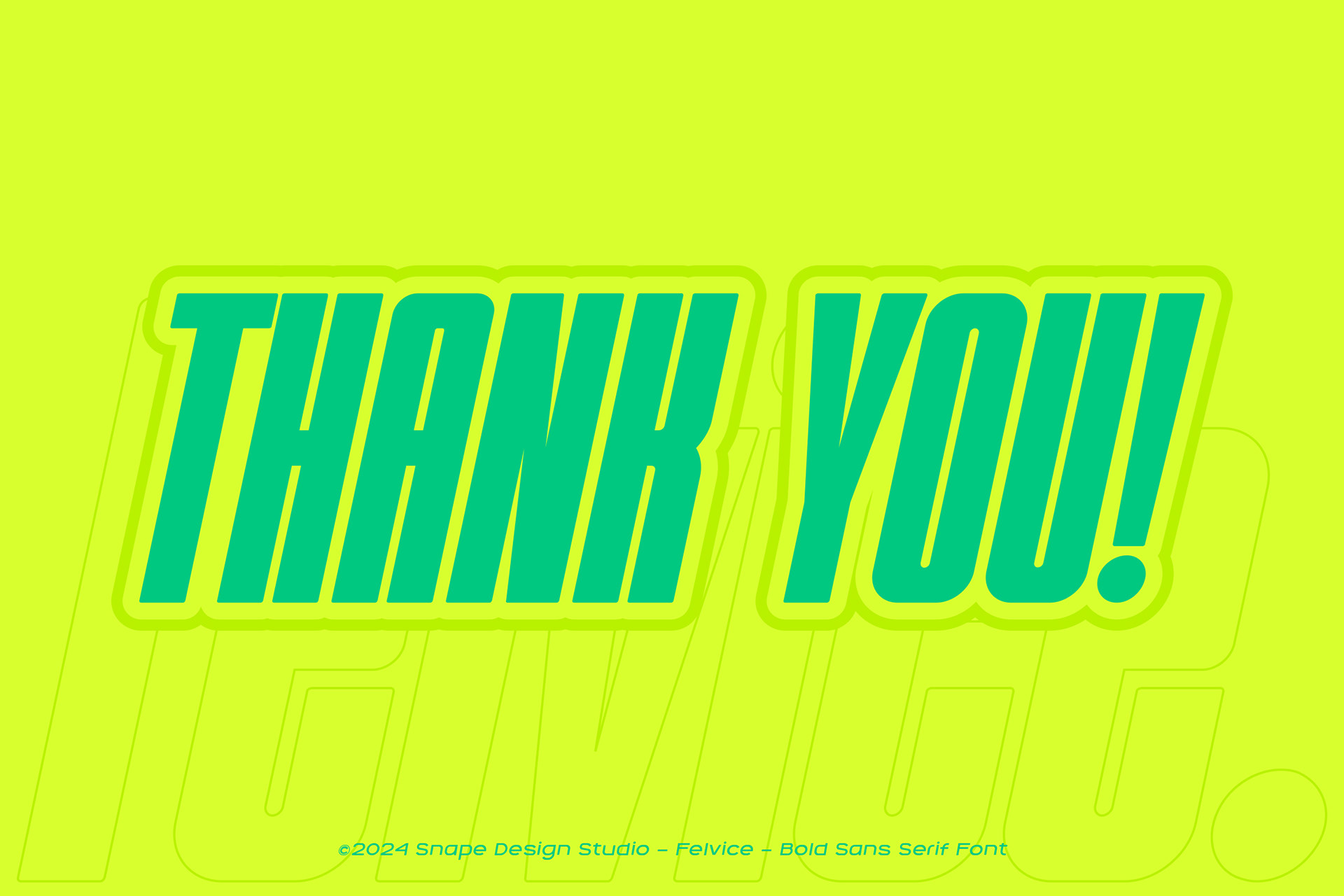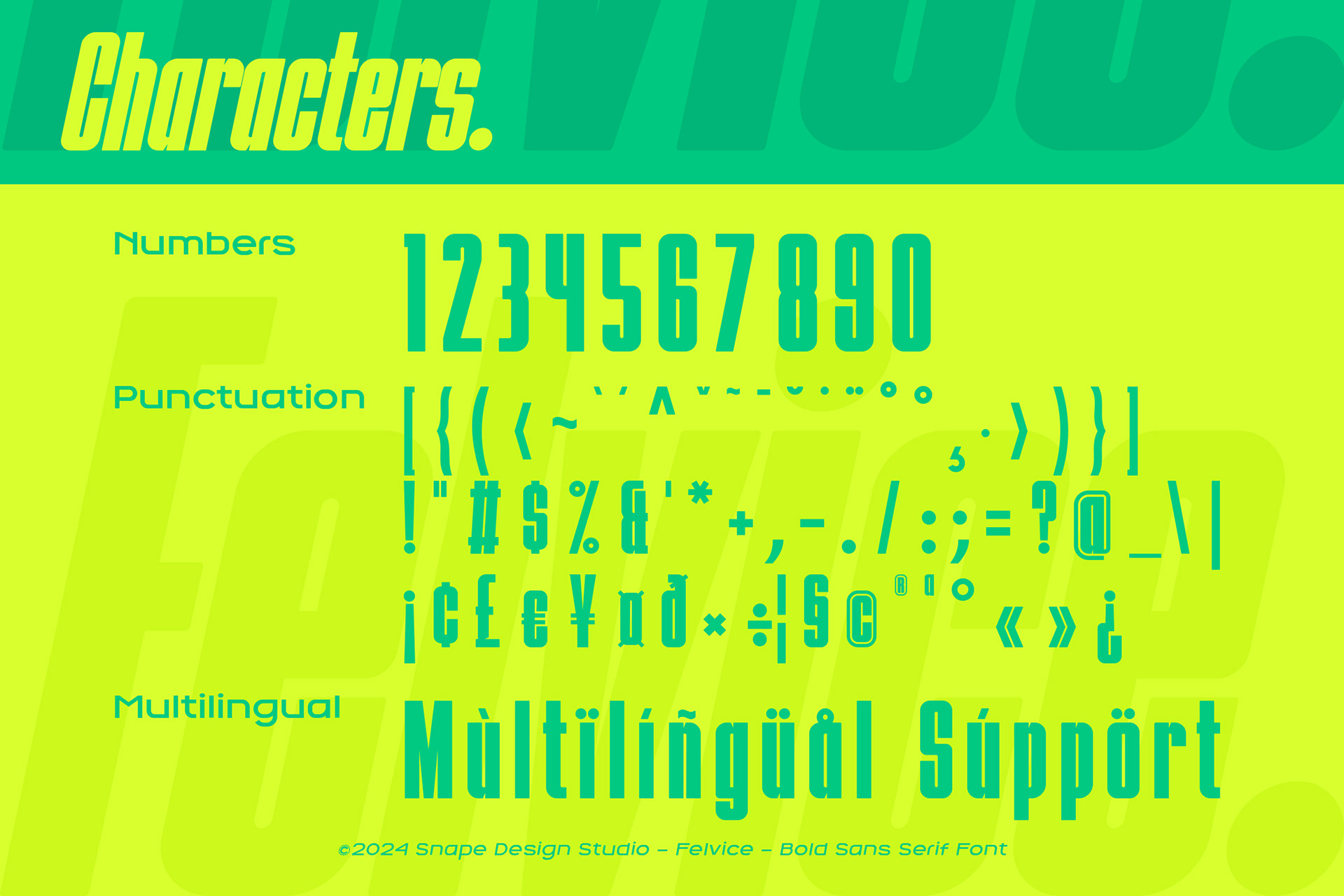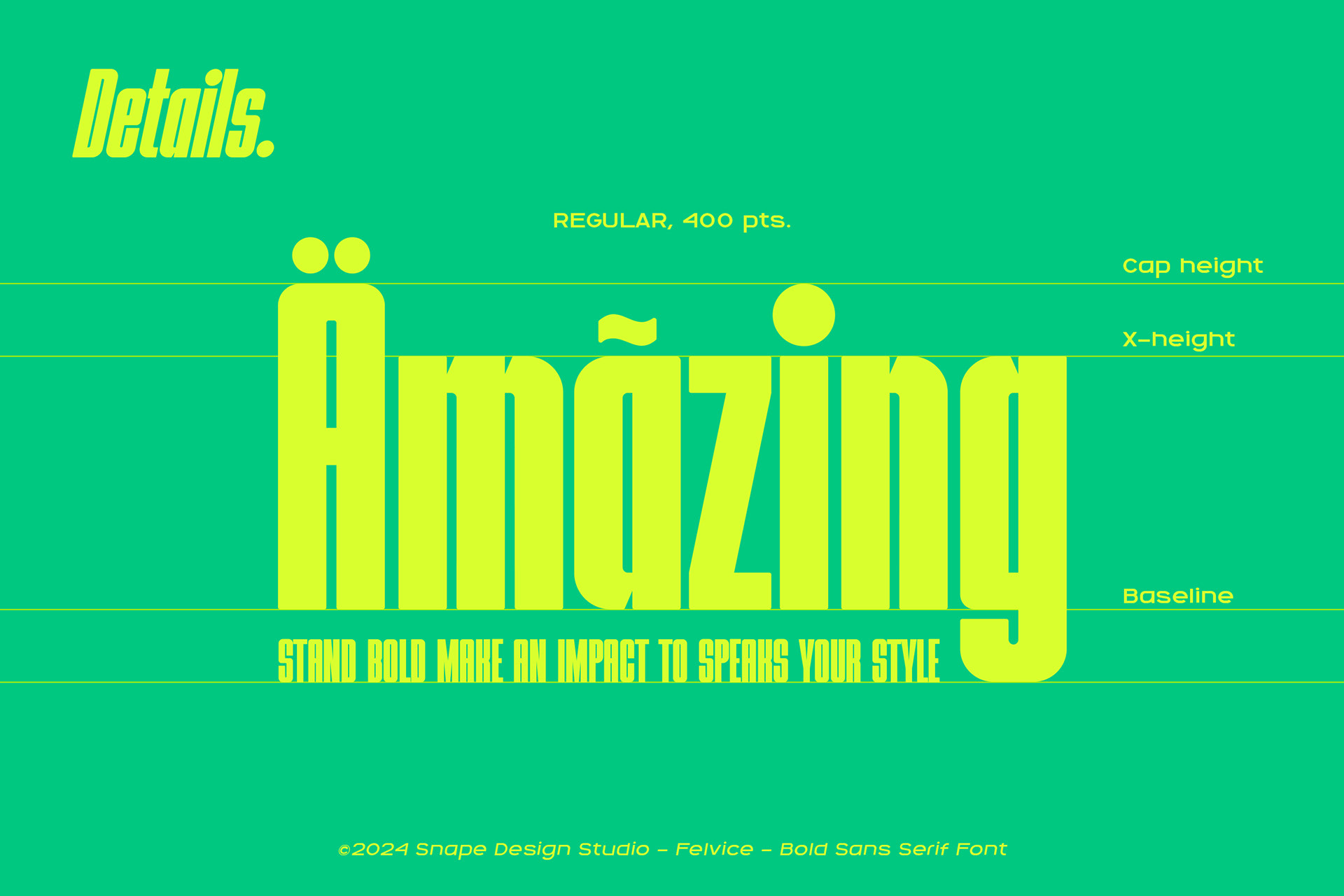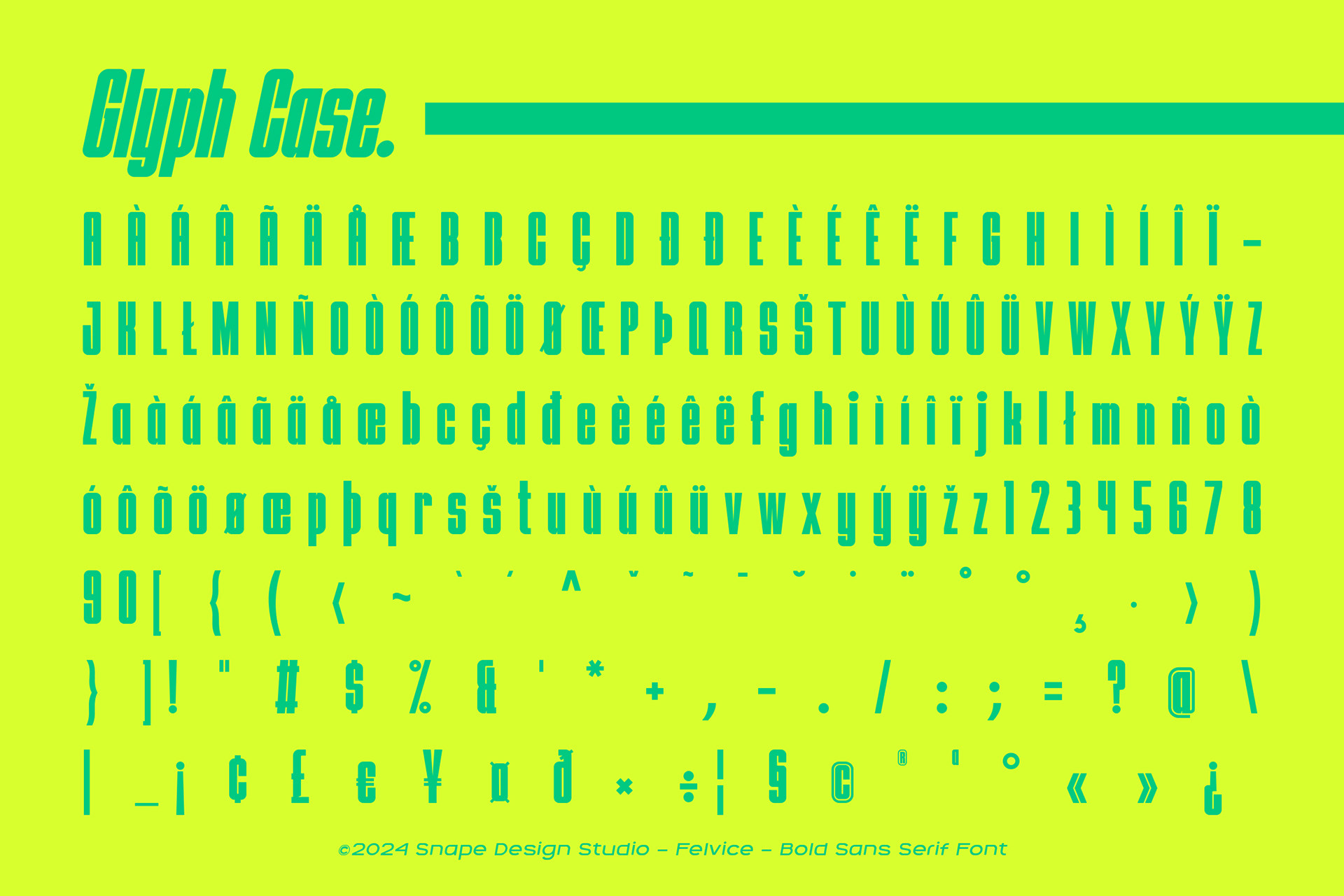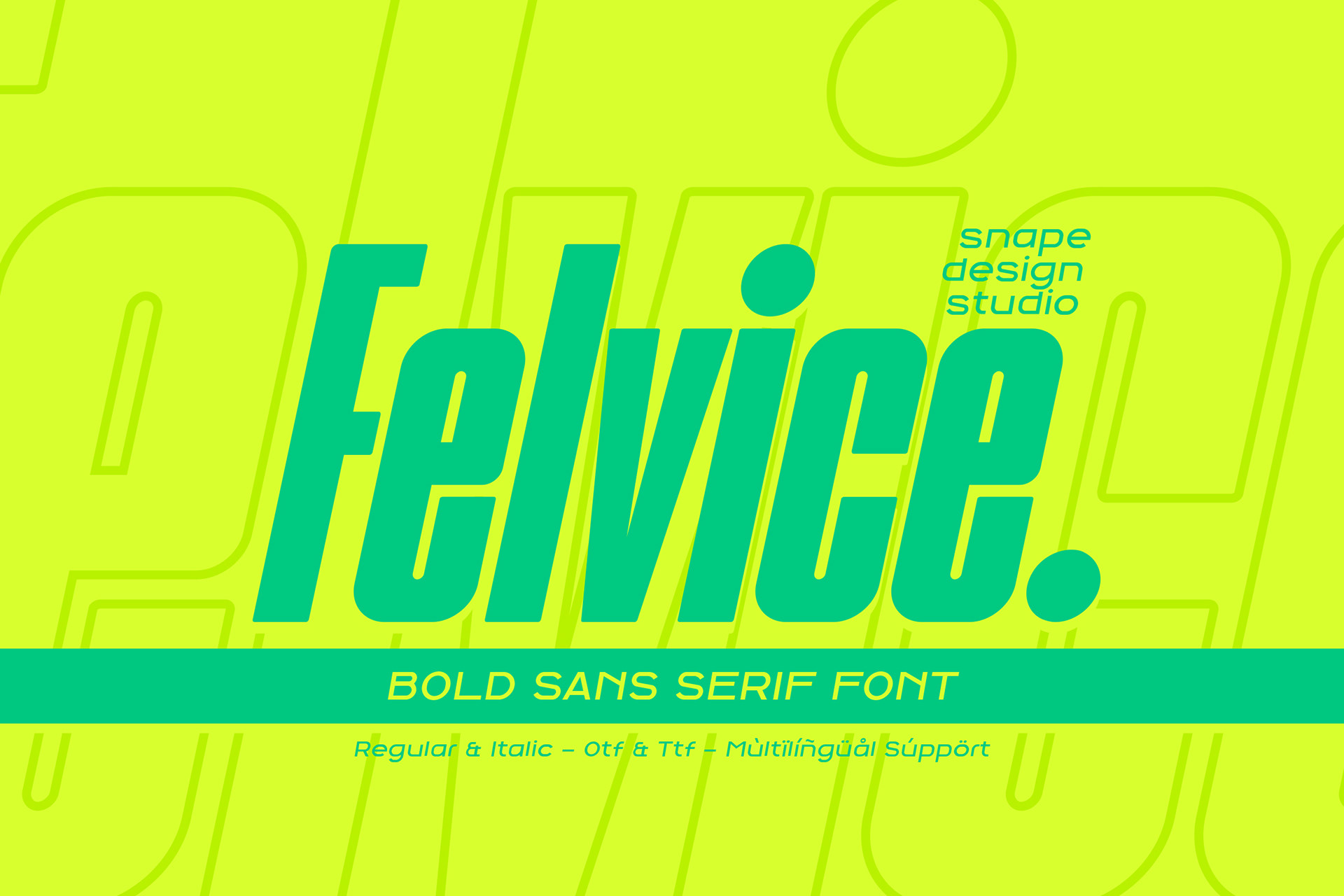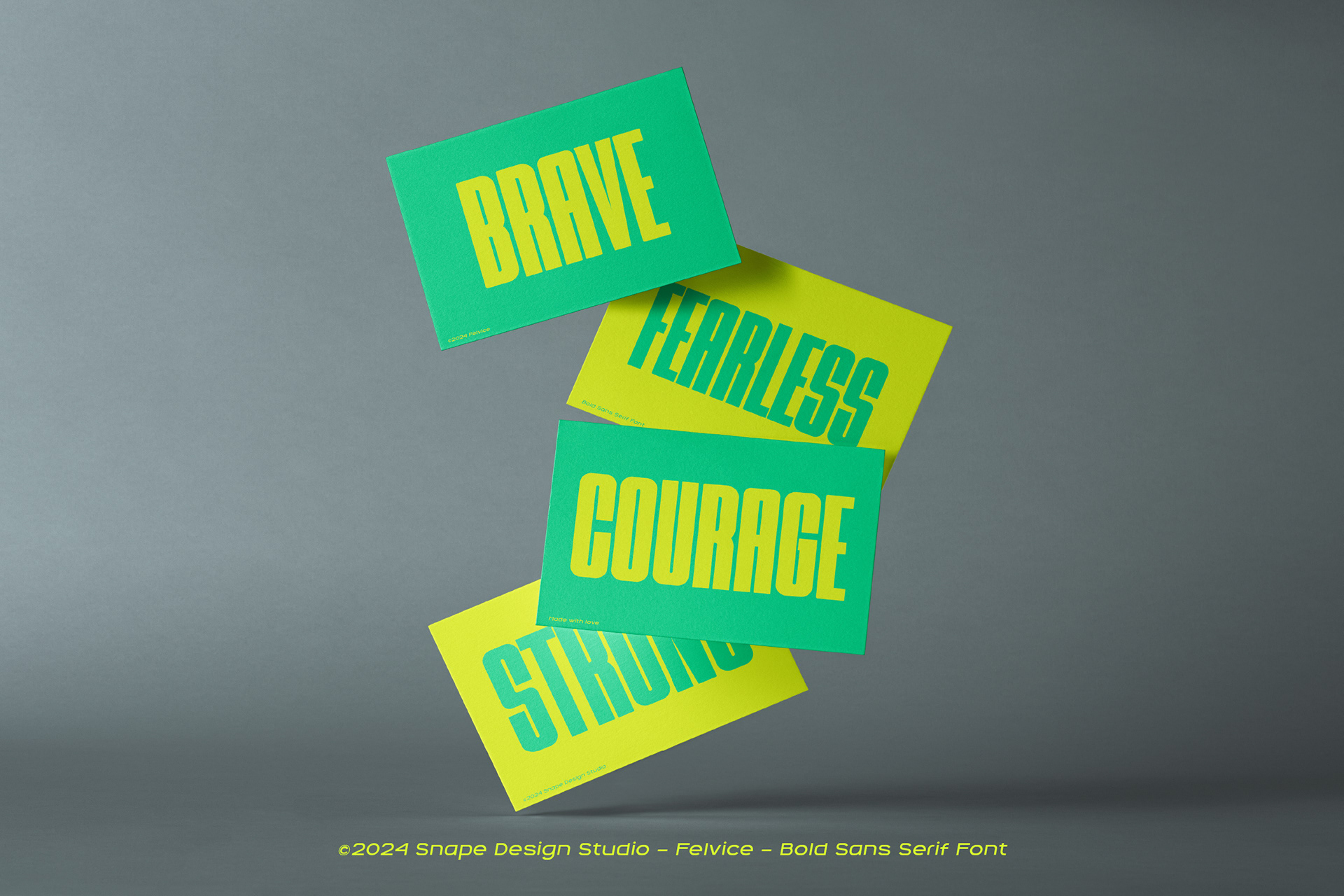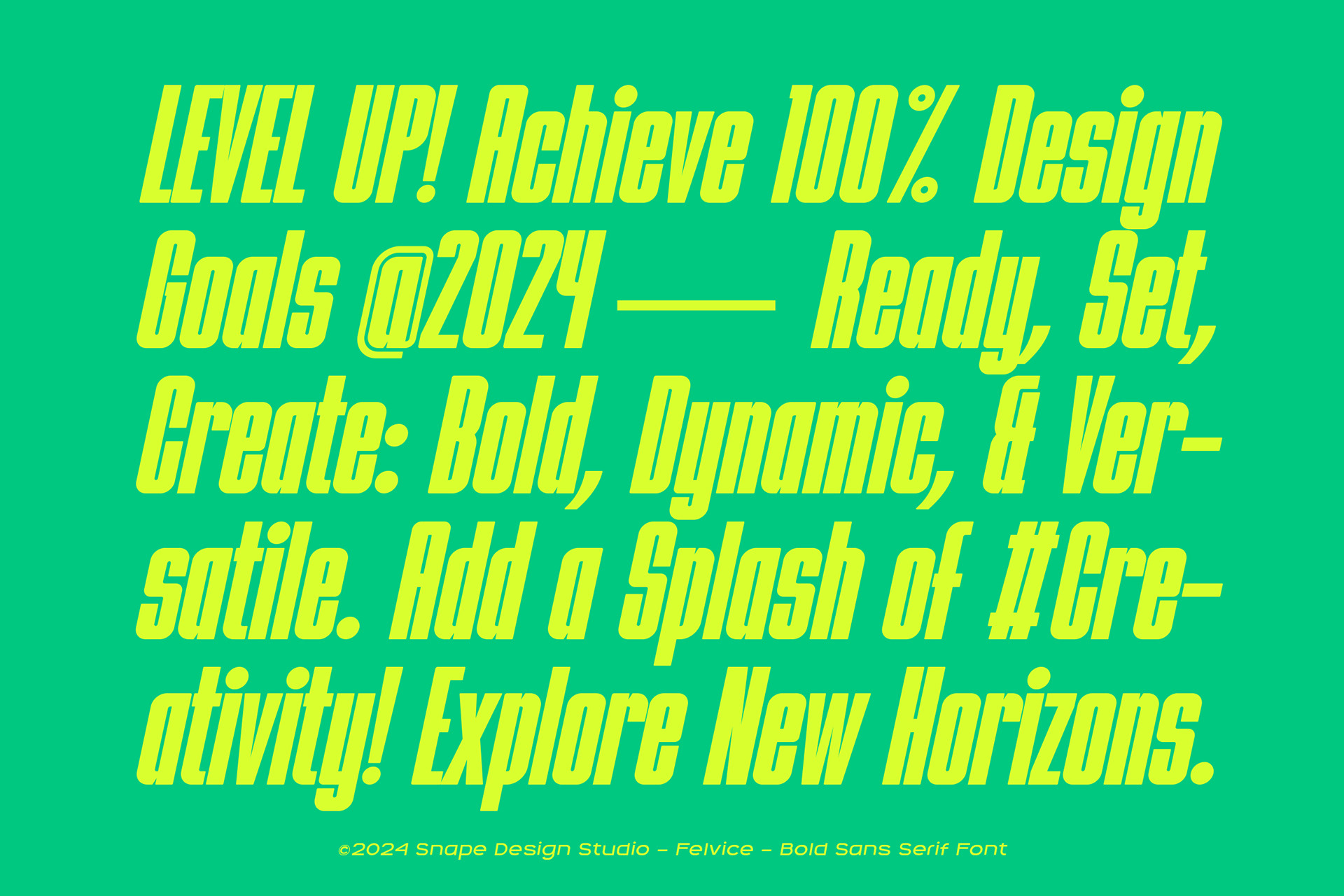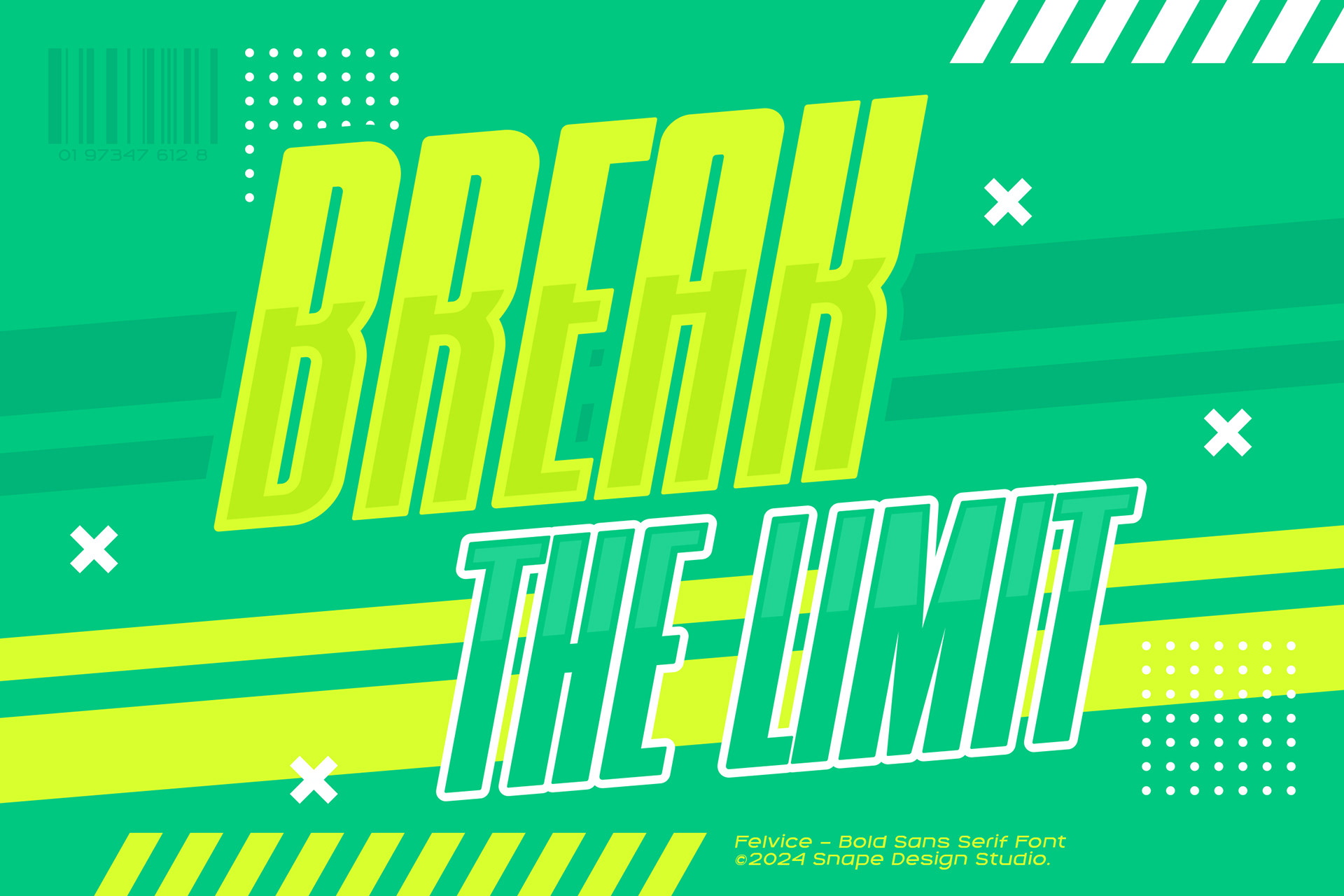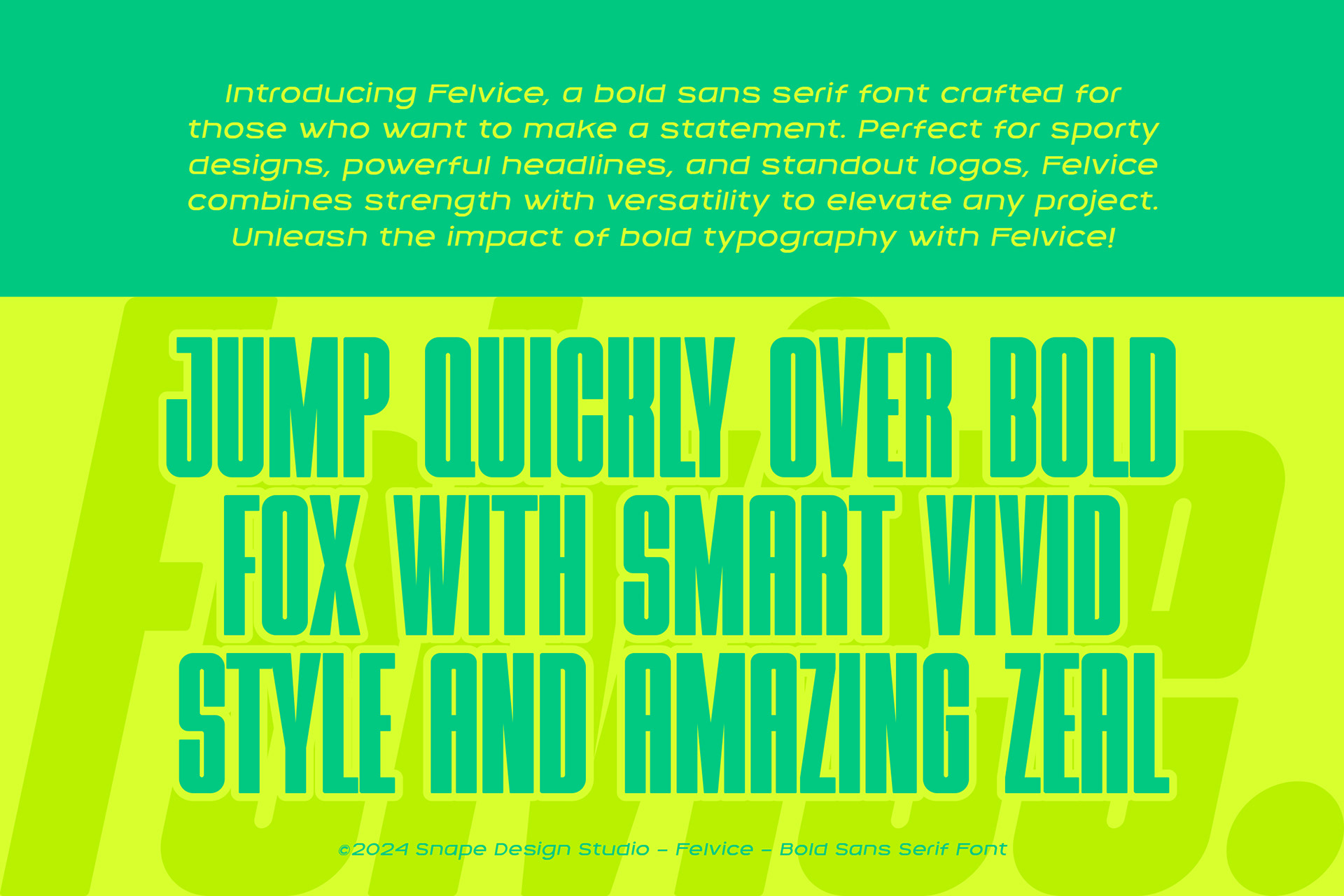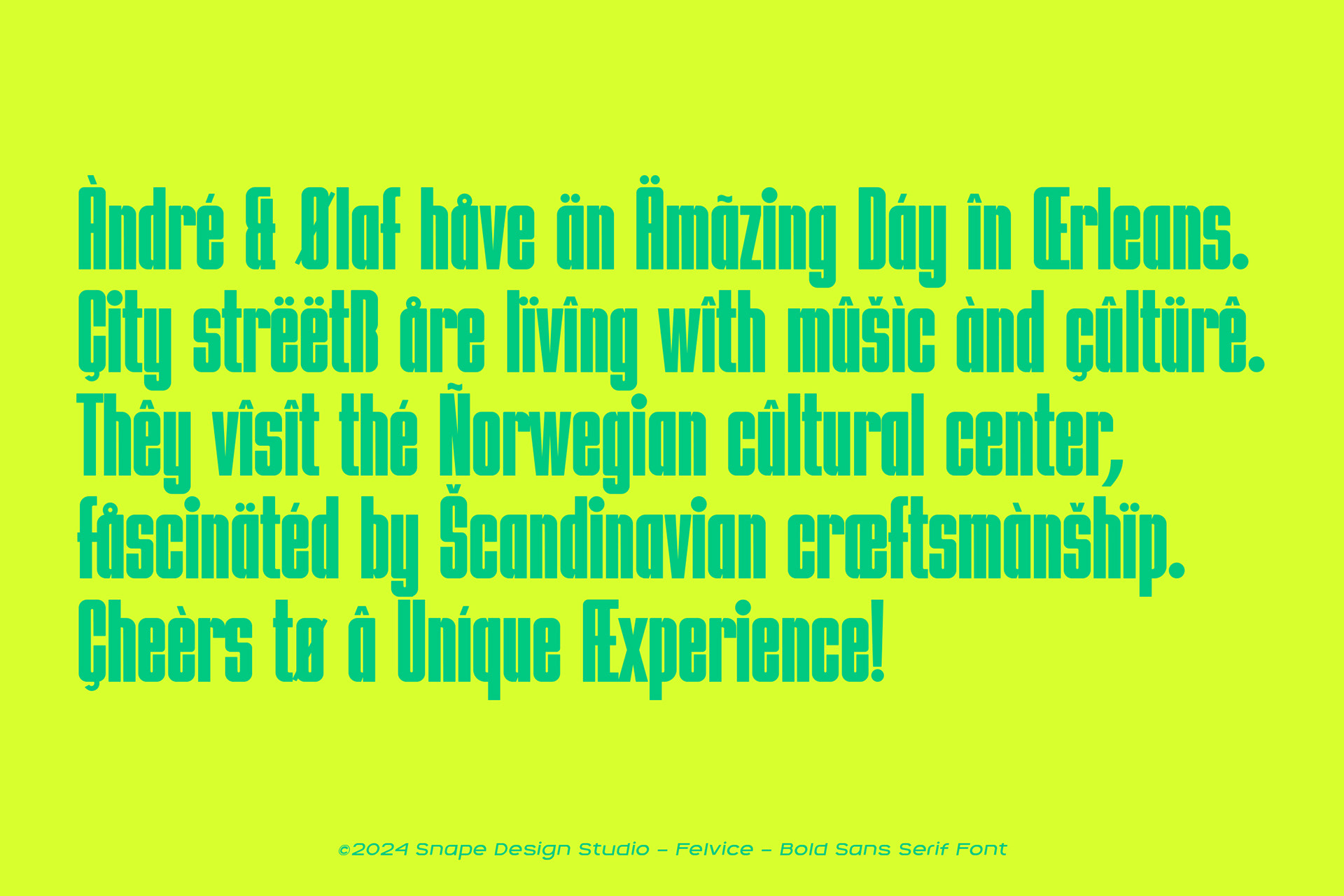
Introducing Felvice, a bold sans serif font crafted for those who want to make a statement. Perfect for sporty designs, powerful headlines, and standout logos, Felvice combines strength with versatility to elevate any project. Unleash the impact of bold typography with Felvice!
Felvice - The Bold Font design by Ario Sabrang Damar publish under Snape Design Studio